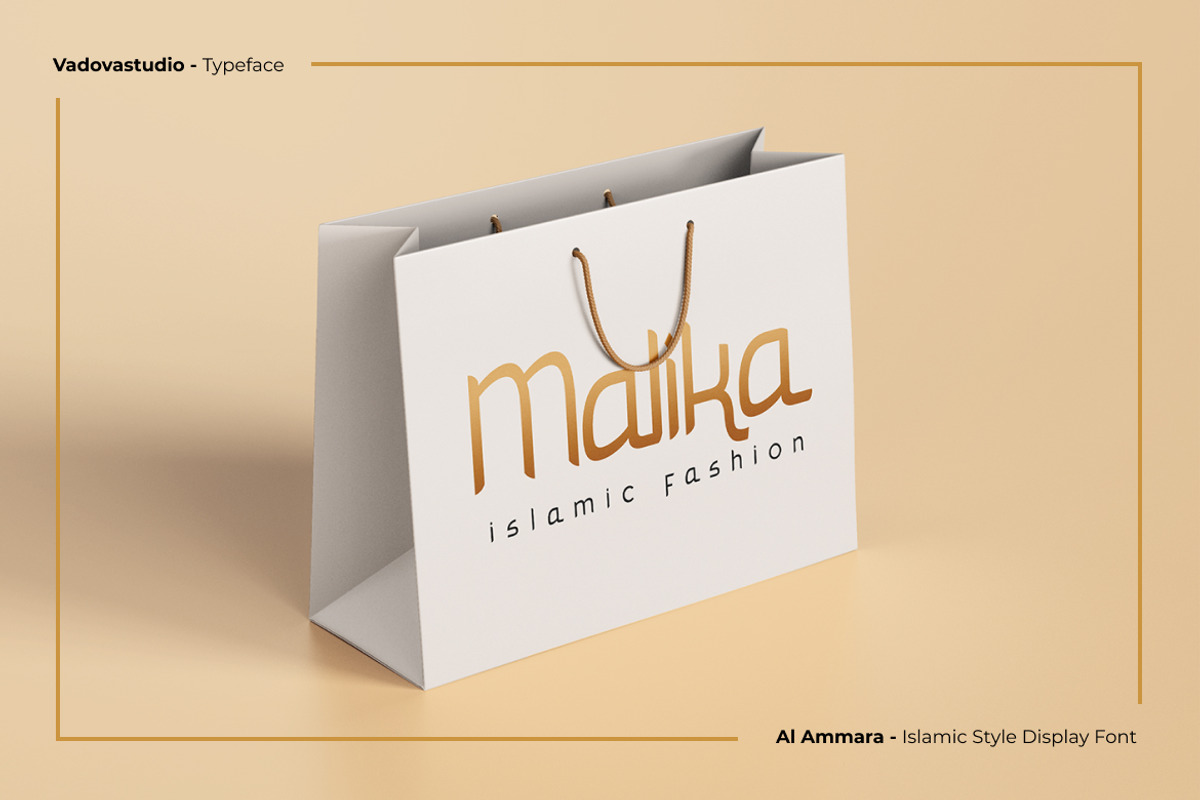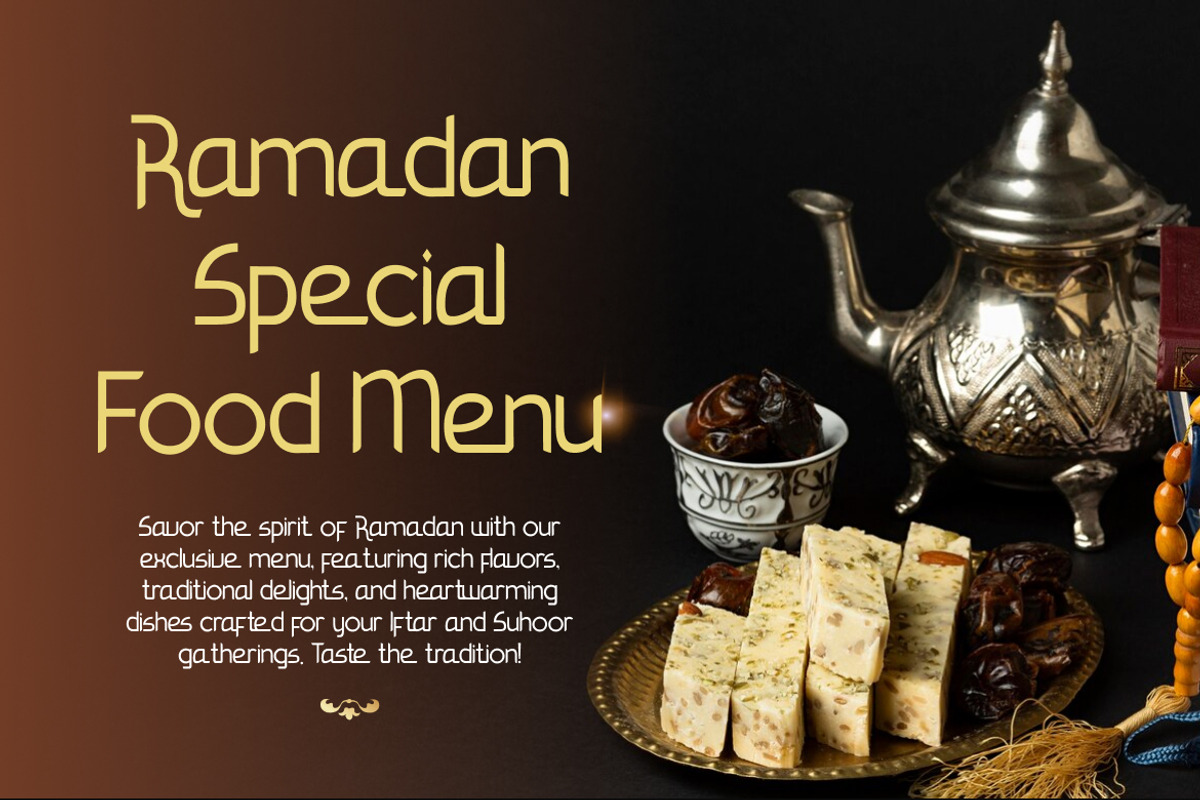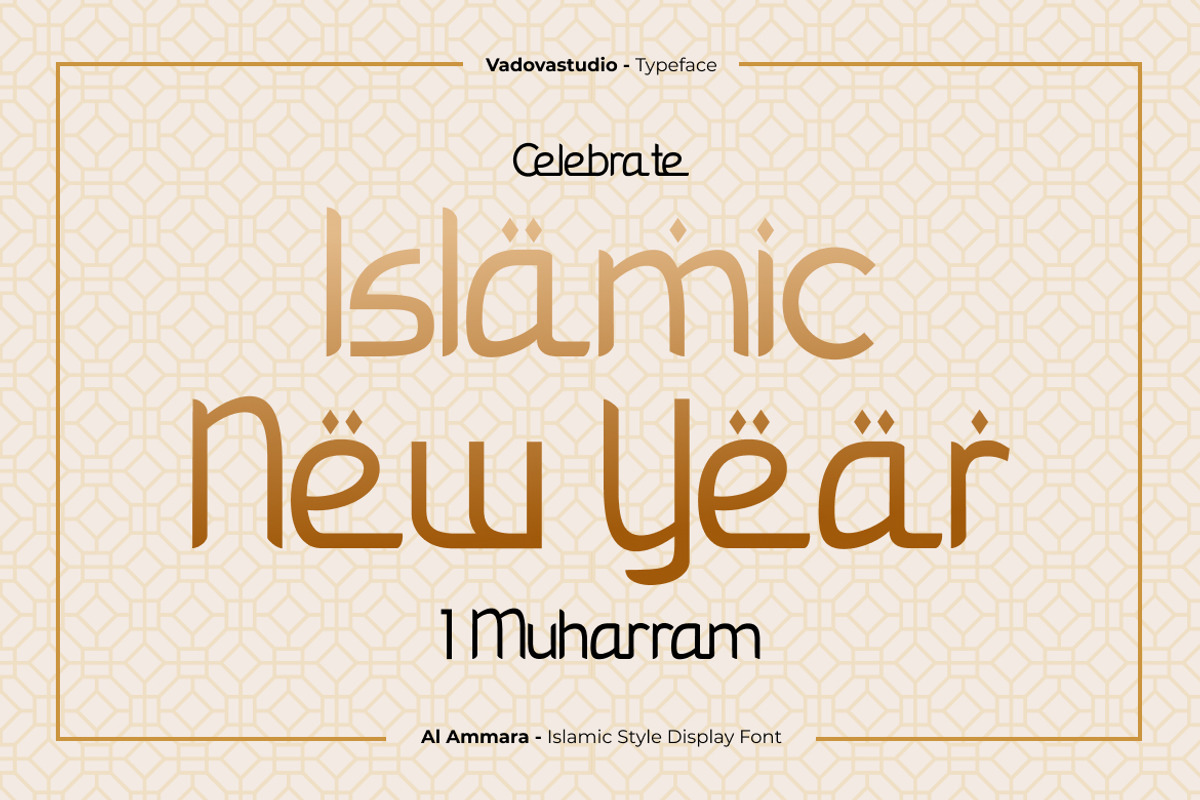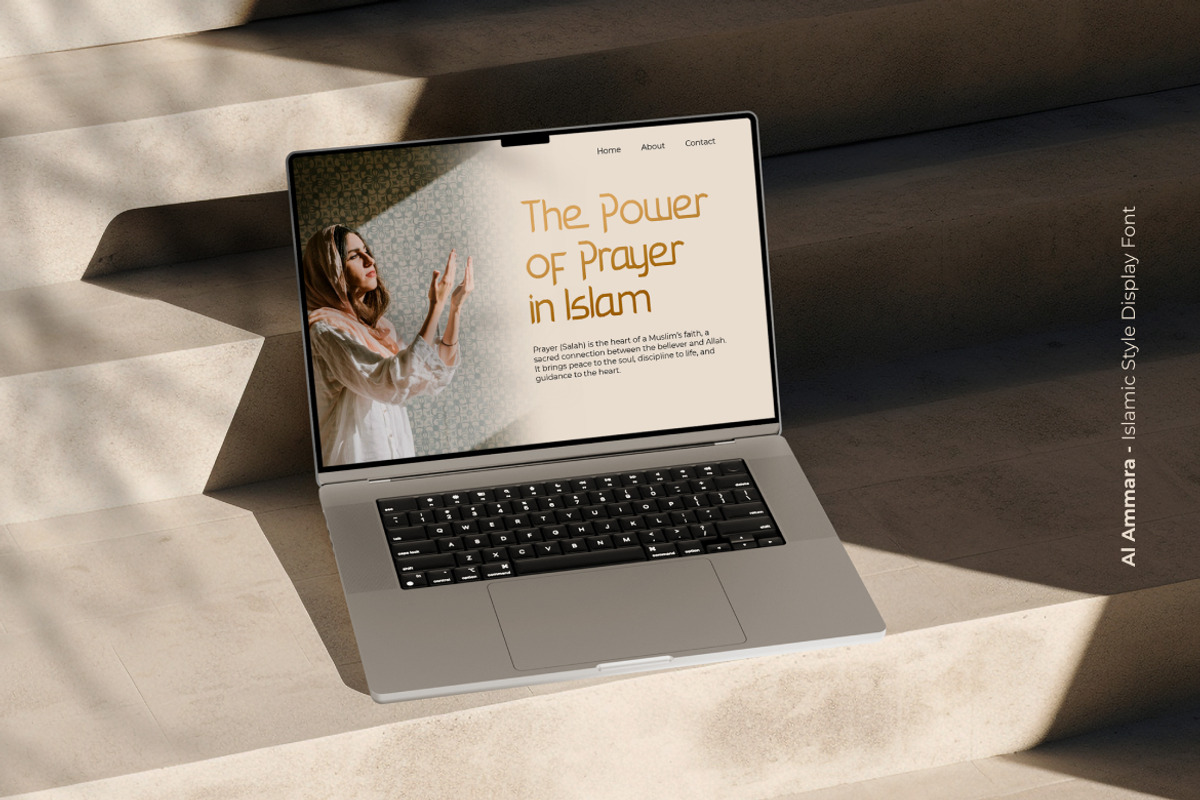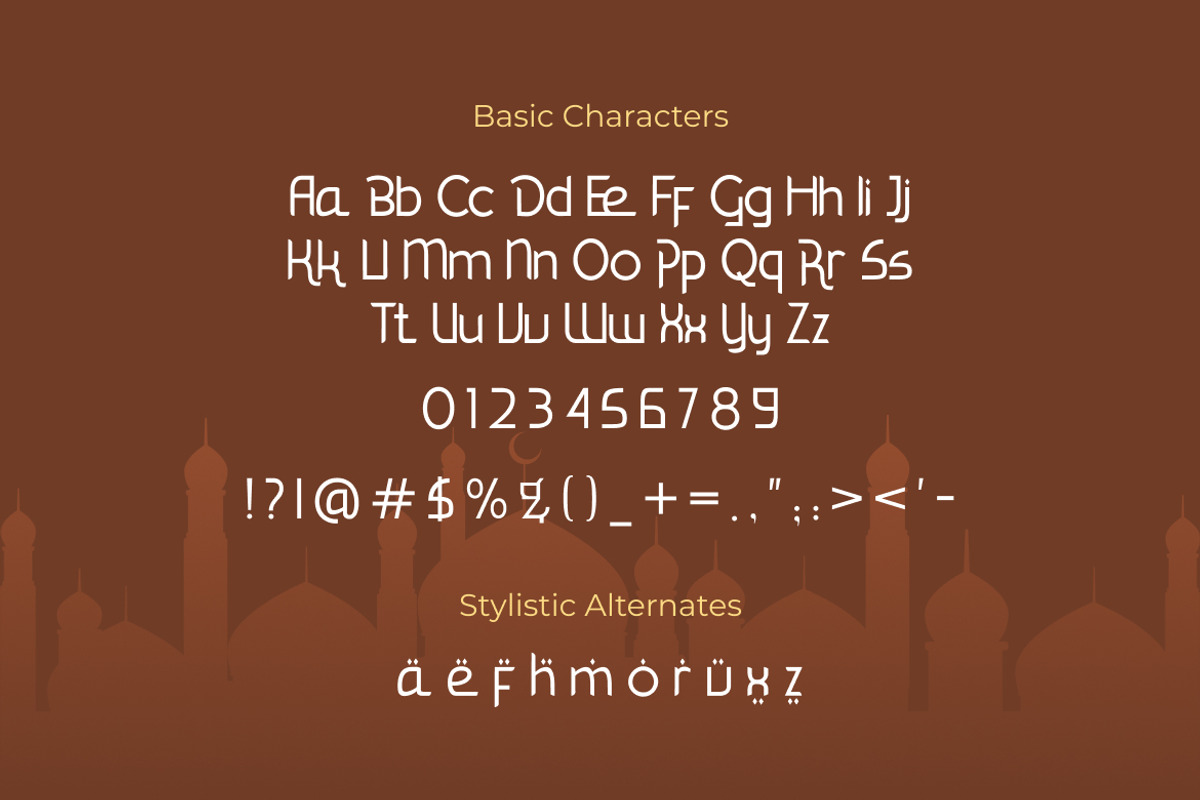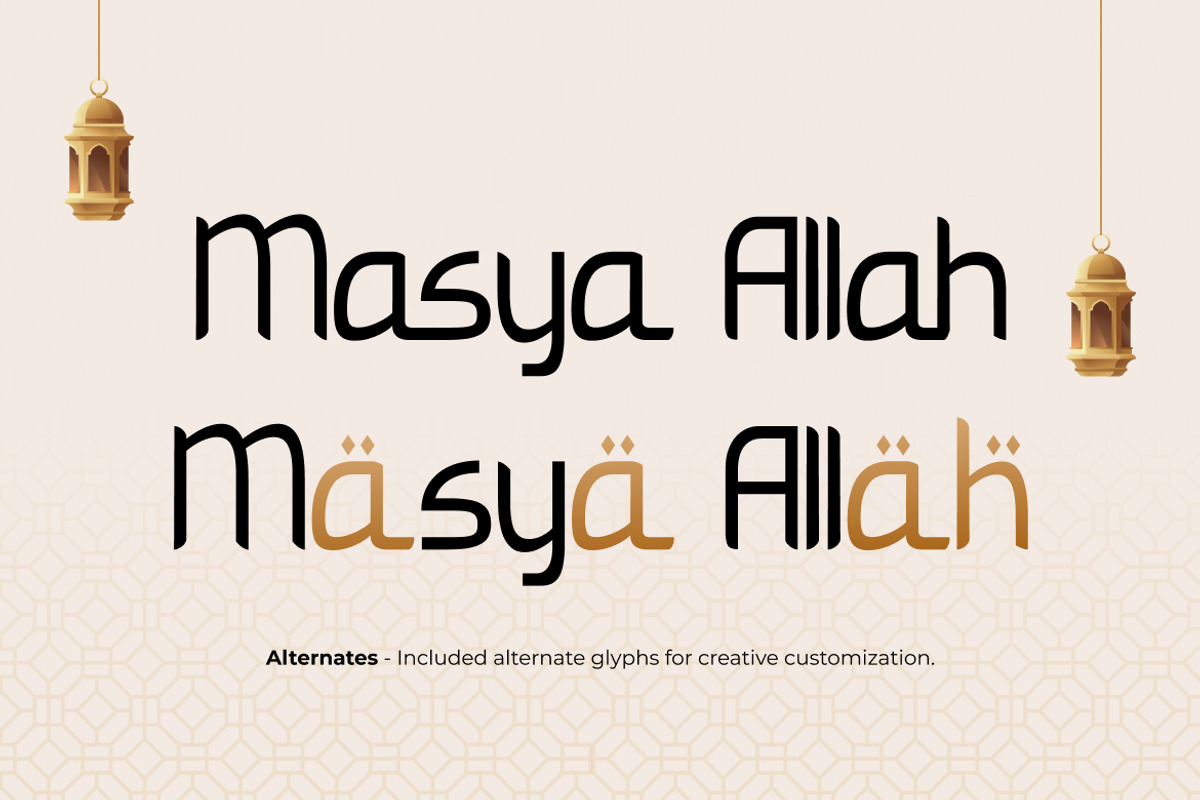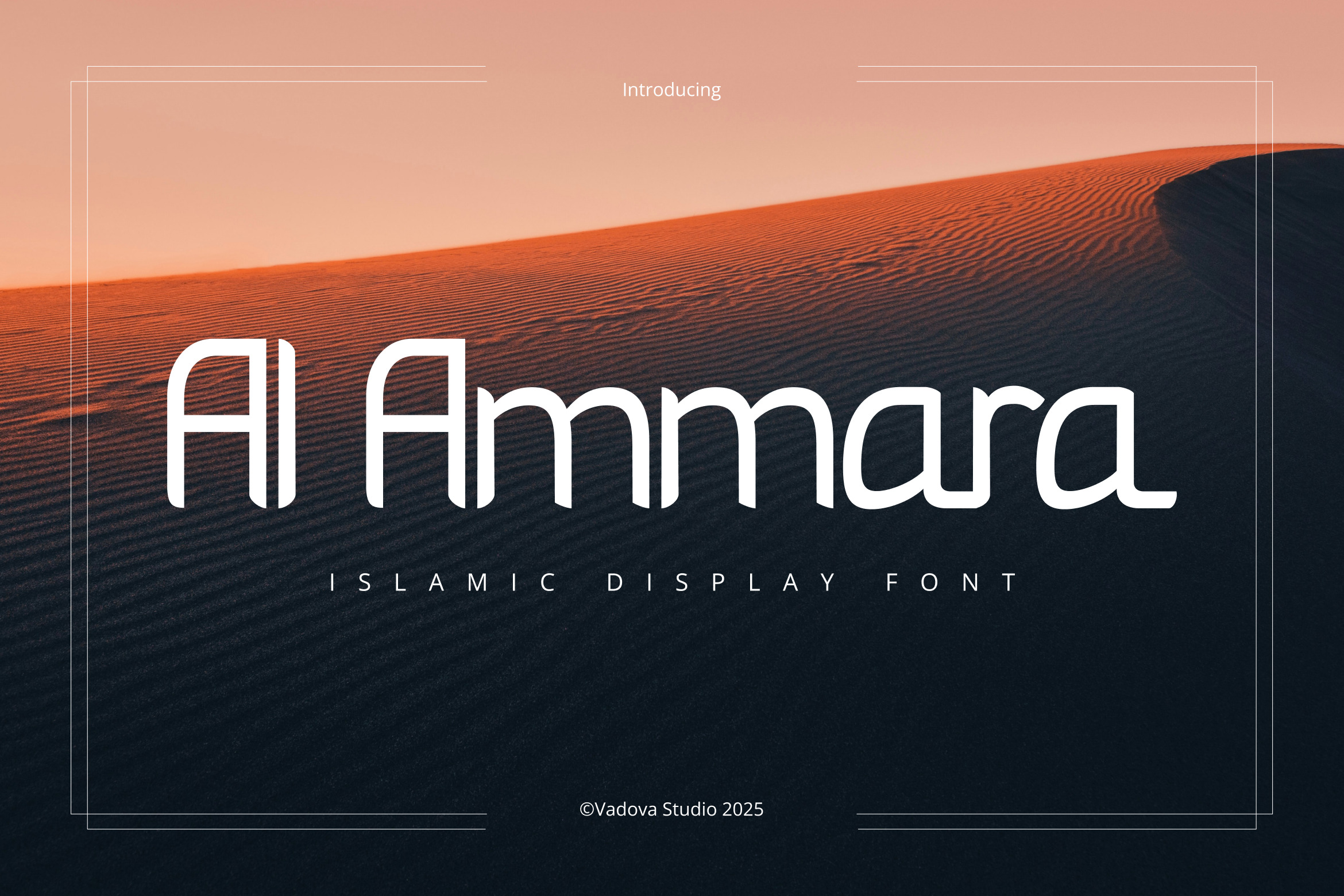
Al Ammara – Islamic Display Font
Al Ammara is a modern Islamic display font that merges sleek geometric structure with subtle cultural influence. Its refined letterforms echo the architectural elegance of Islamic design, while maintaining a contemporary and minimalist aesthetic. The result is a versatile display typeface that works beautifully across branding, editorial, signage, and event graphics.
With its balance of modern clarity and cultural essence, Al Ammara adds a distinguished identity to any design project — perfect for those seeking a blend of heritage and modern sophistication.
Font Highlights
Uppercase & lowercase characters
Numerals and punctuation
Geometric display style with Islamic inspiration
Why Designers Love Al Ammara
Elegant Structure – Inspired by Islamic architecture with a clean, modern twist.
Cultural Identity – Infuses projects with subtle spiritual and traditional character.
Versatile Design – Ideal for branding, posters, packaging, and editorial layouts.
Modern Sophistication – Balances contemporary minimalism with heritage.
Best Applications
Islamic festival and event posters
Cultural branding and packaging
Editorial headlines and magazine layouts
Logo design and signage
Religious organization branding
Social media and advertising campaigns
Bring elegance and cultural depth to your designs with Al Ammara — where modern geometry meets Islamic artistry.